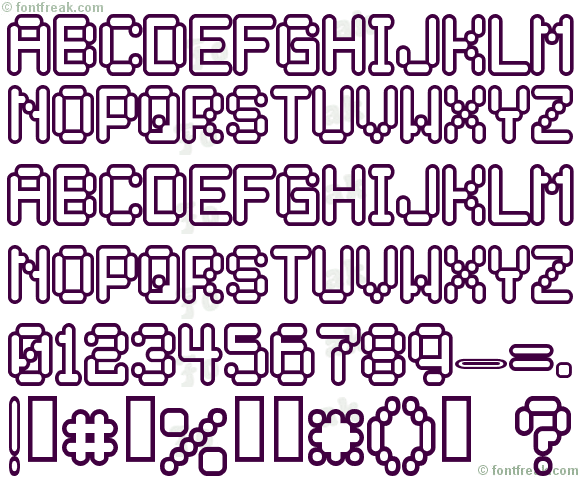
Rocketman
The Rocketman font by Pizzadude is a playful and eye-catching display typeface that perfectly embodies a modern, tech-inspired aesthetic. This decorative font features a unique design characterized by rounded edges and a bold structure, creating an engaging visual appeal. The stroke weight is consistent throughout, lending itself to a clean and cohesive look, while the spacing between characters ensures readability. The playful incorporation of geometric shapes within the letters adds a whimsical touch, making it suitable for a variety of creative projects.
Ideal for use in vibrant and imaginative contexts, the Rocketman font is perfect for designing movie posters, children's book covers, event flyers, and advertising materials for tech startups. Its energetic character makes it stand out on digital platforms, making it a great choice for social media graphics and website headers. This font is particularly appealing to graphic designers, small business owners, and content creators looking to add a distinctive flair to their branding and marketing materials.